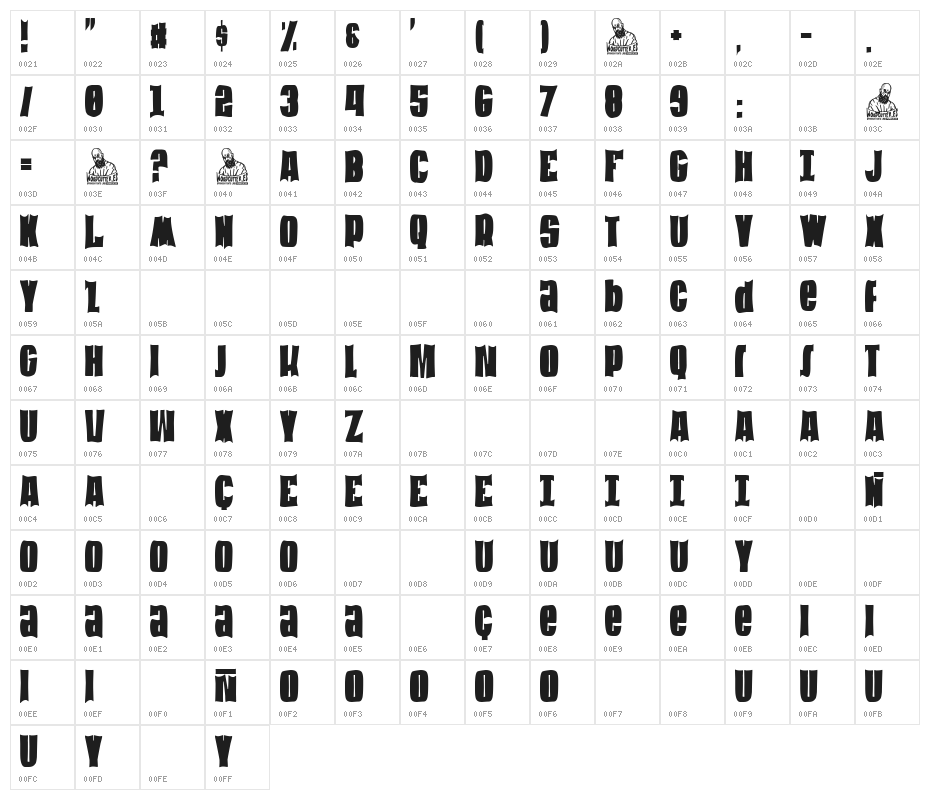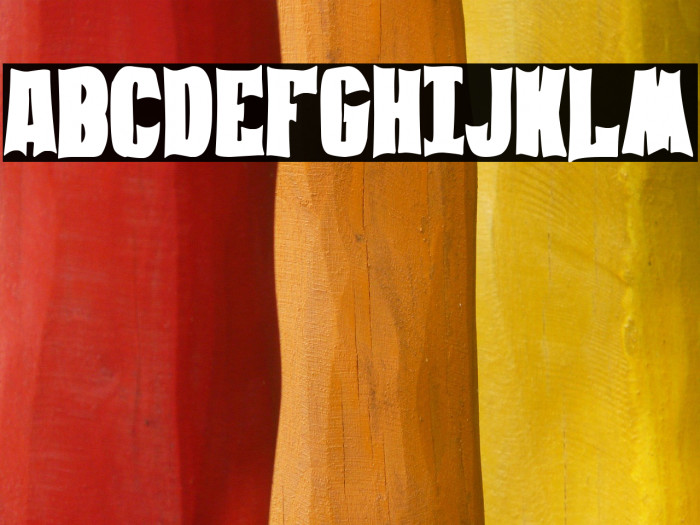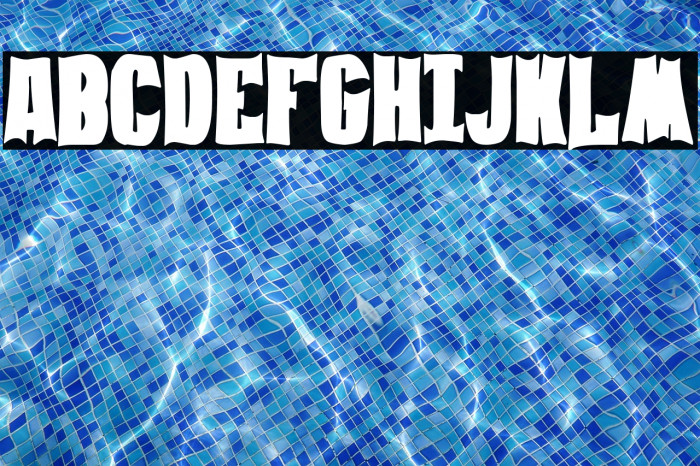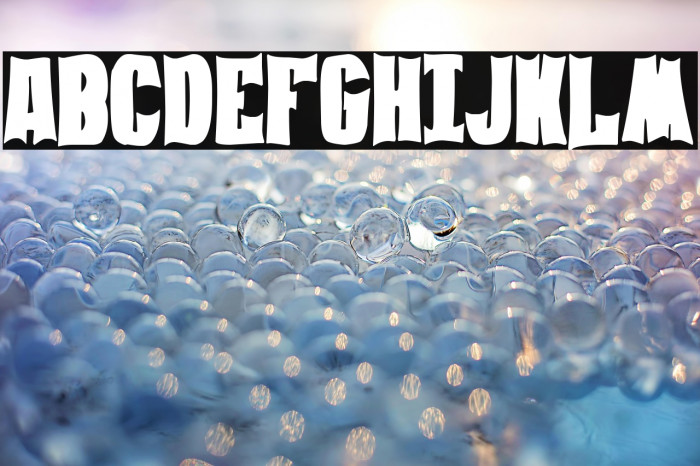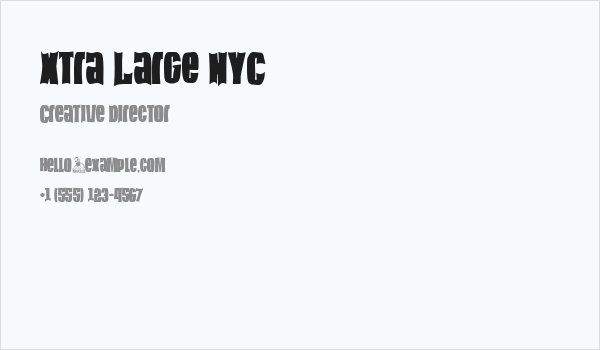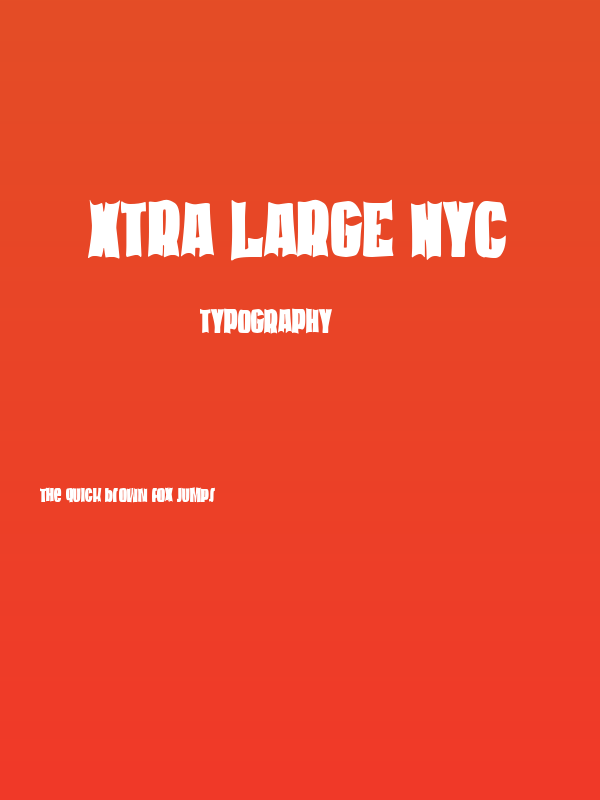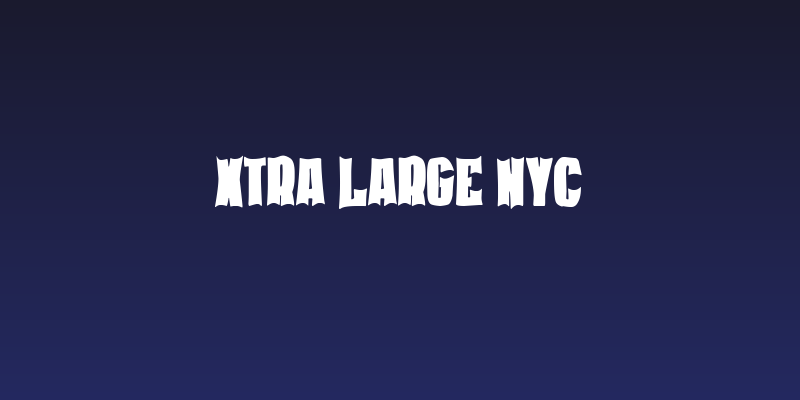
Xtra Large NYC Font
Xtra Large NYC Description
This font features a bold and striking design with a strong presence. The characters are heavily weighted with thick strokes, giving them a robust and impactful appearance. The style is reminiscent of vintage poster fonts, with a playful yet commanding aesthetic. Each letter is uniquely shaped, with exaggerated curves and angles that add to its decorative appeal. The font maintains a consistent width throughout, ensuring uniformity across all characters. Its boldness and distinctive style make it ideal for attention-grabbing headlines and creative projects.
Overall StyleVintage
Proposed ProjectsIdeal for posters, logos, branding, and any project requiring a bold, eye-catching typeface.